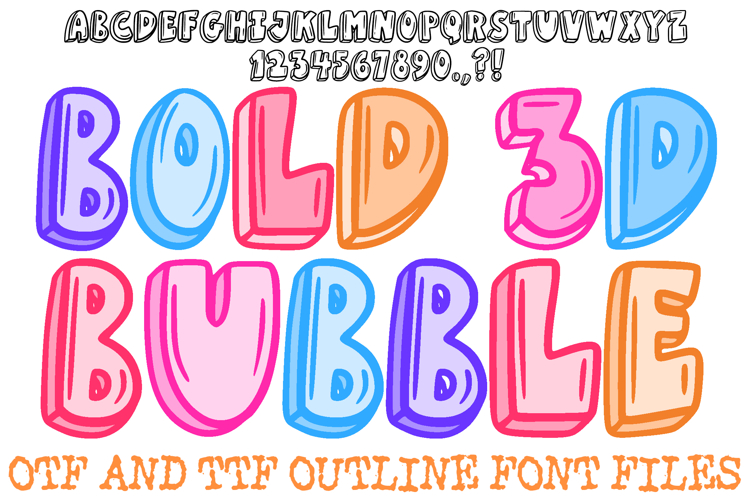
Bold 3D Bubble Font Doodle Lettering Comic Cartoon ABC OTF
Add a burst of dimension to your projects with the Bold 3D Bubble Font! This hand-drawn display alphabet features chunky, rounded characters with unique inner detail lines that create a striking 3D pop-out effect. It is the ultimate choice for high-impact children's branding, comic book lettering, vibrant stickers, and any creative project that needs to jump off the page.
The heavy weight and playful silhouette ensure your headlines are impossible to miss, while the hand-drawn doodle style maintains an approachable, artisan feel. Whether you are designing for a superhero-themed birthday, bold classroom decor, or trendy apparel, the Bold 3D Bubble Font delivers a professional, energetic look that stands out.
3D Detail Lines: Every character includes carefully placed internal lines that simulate depth and shading for a professional "pop".
Ultra-Bold Silhouette: The thick, chunky letterforms provide maximum visibility for logos, headlines, and posters.